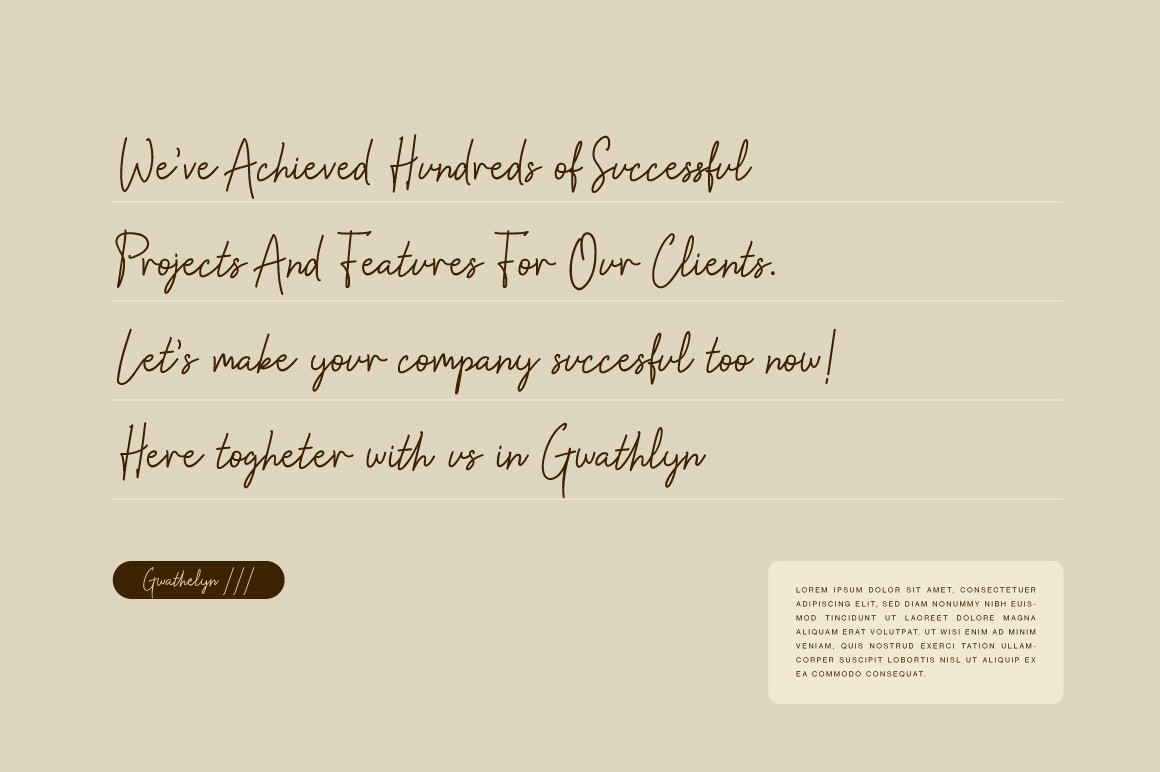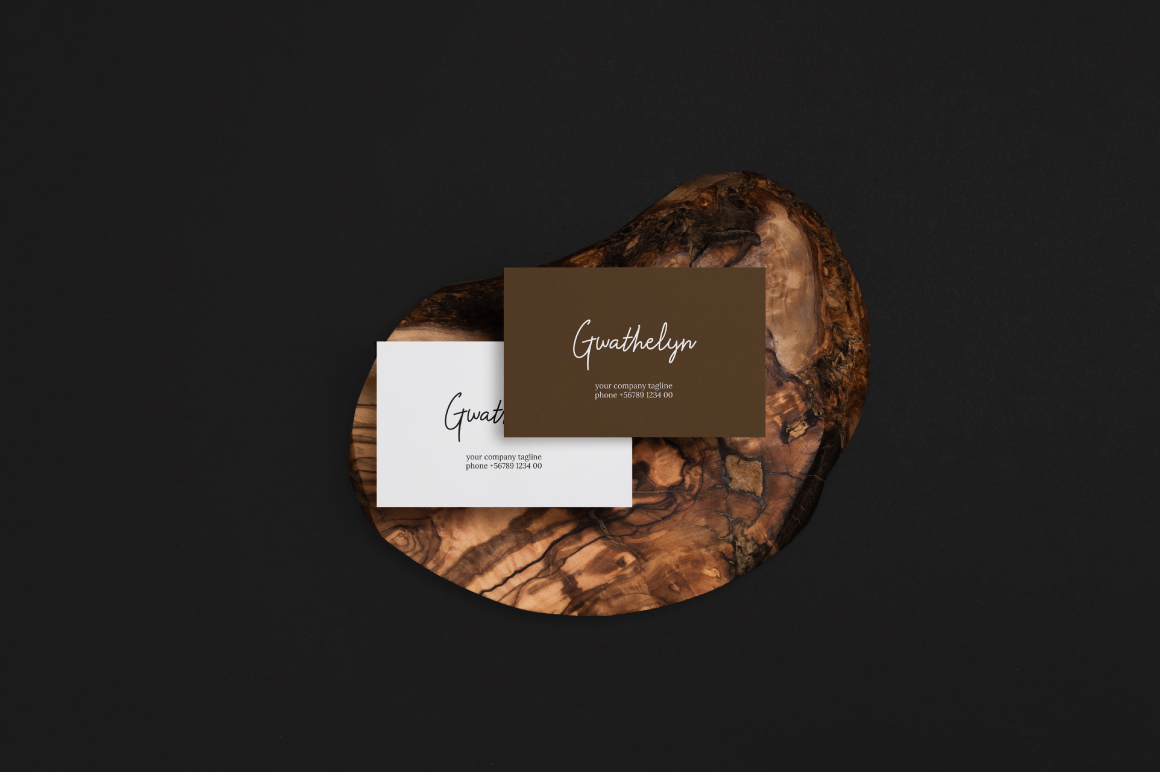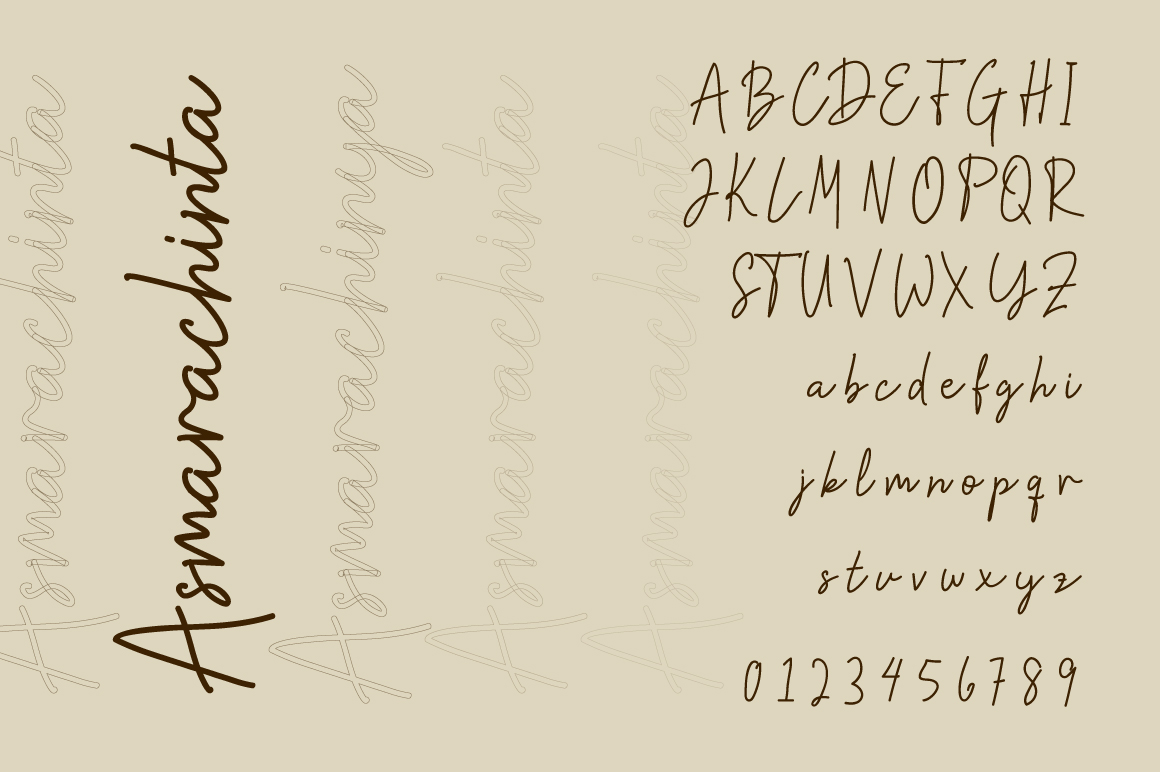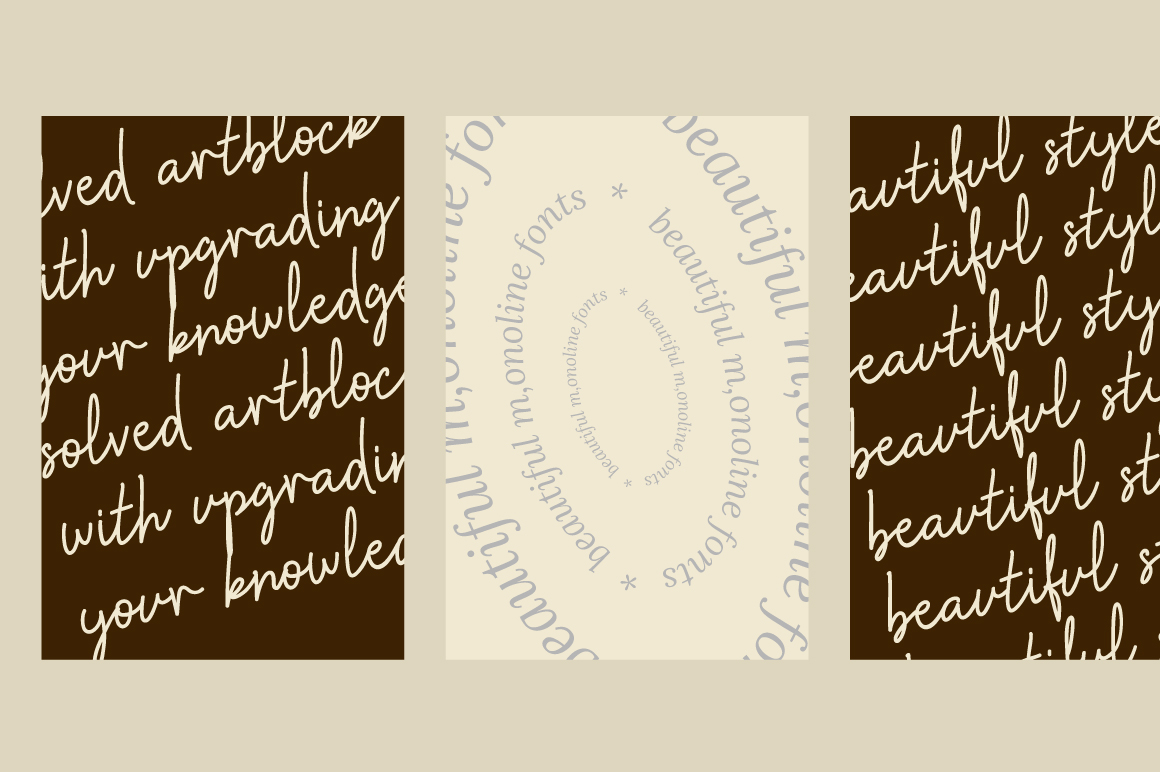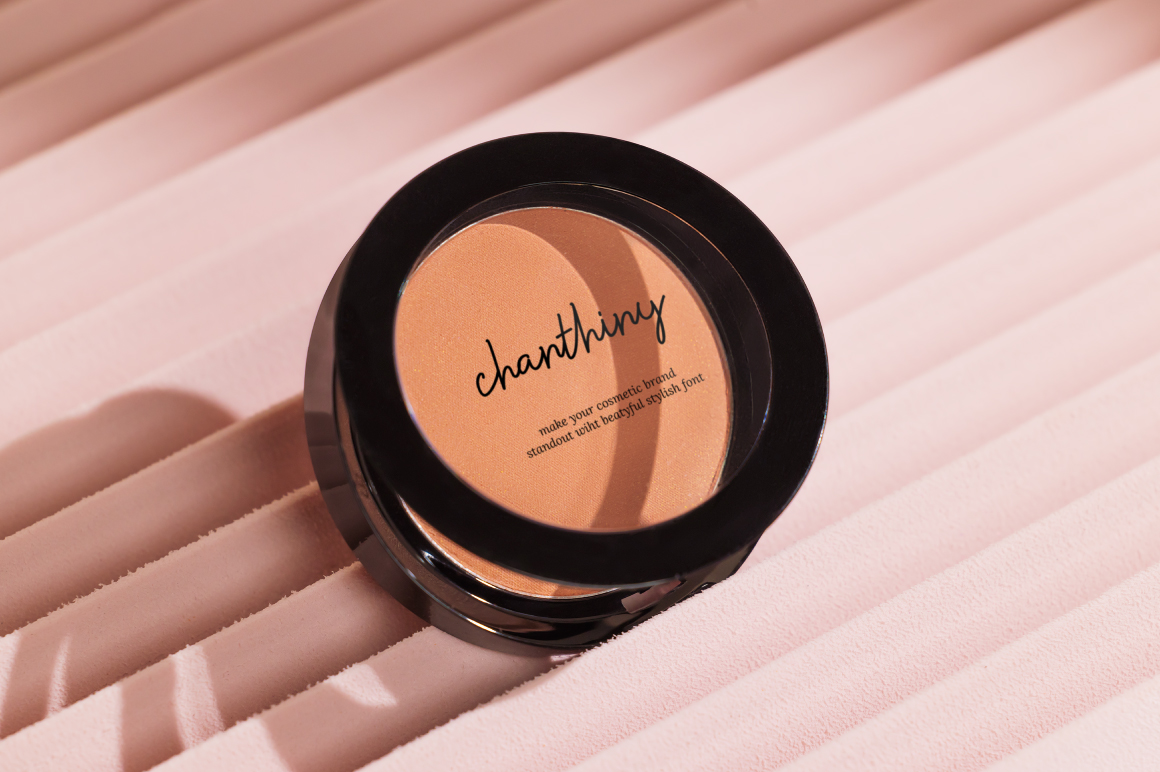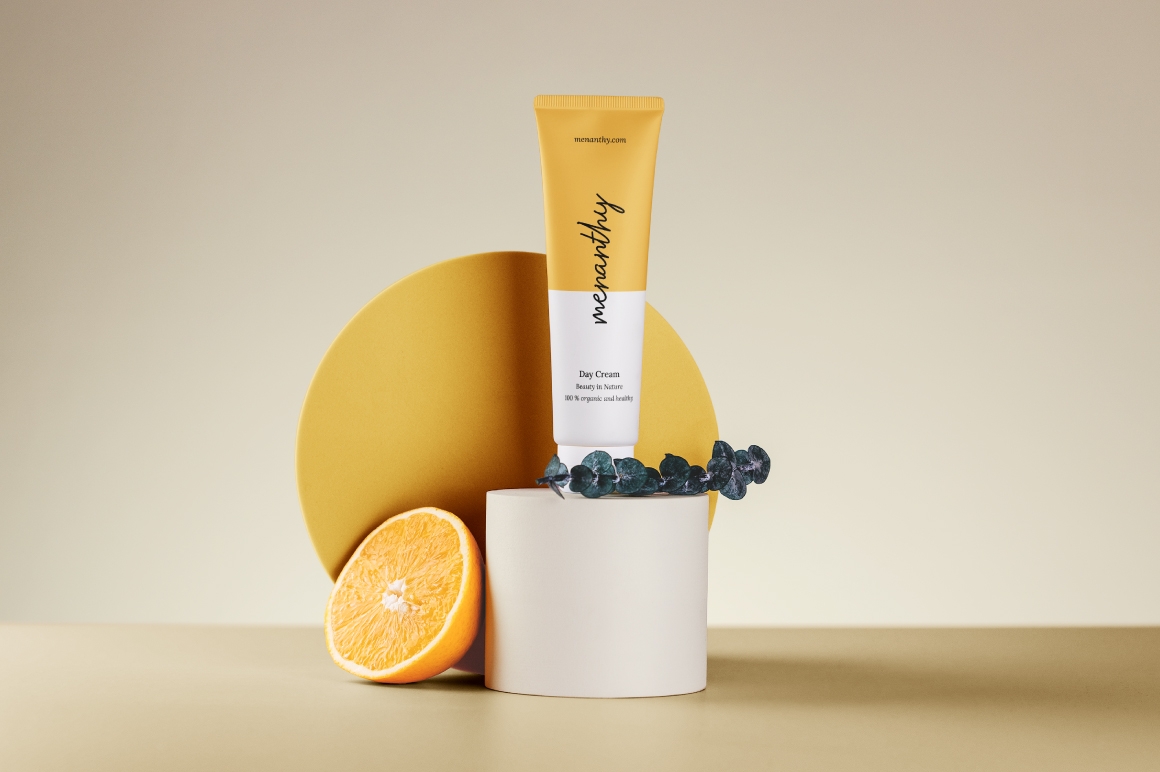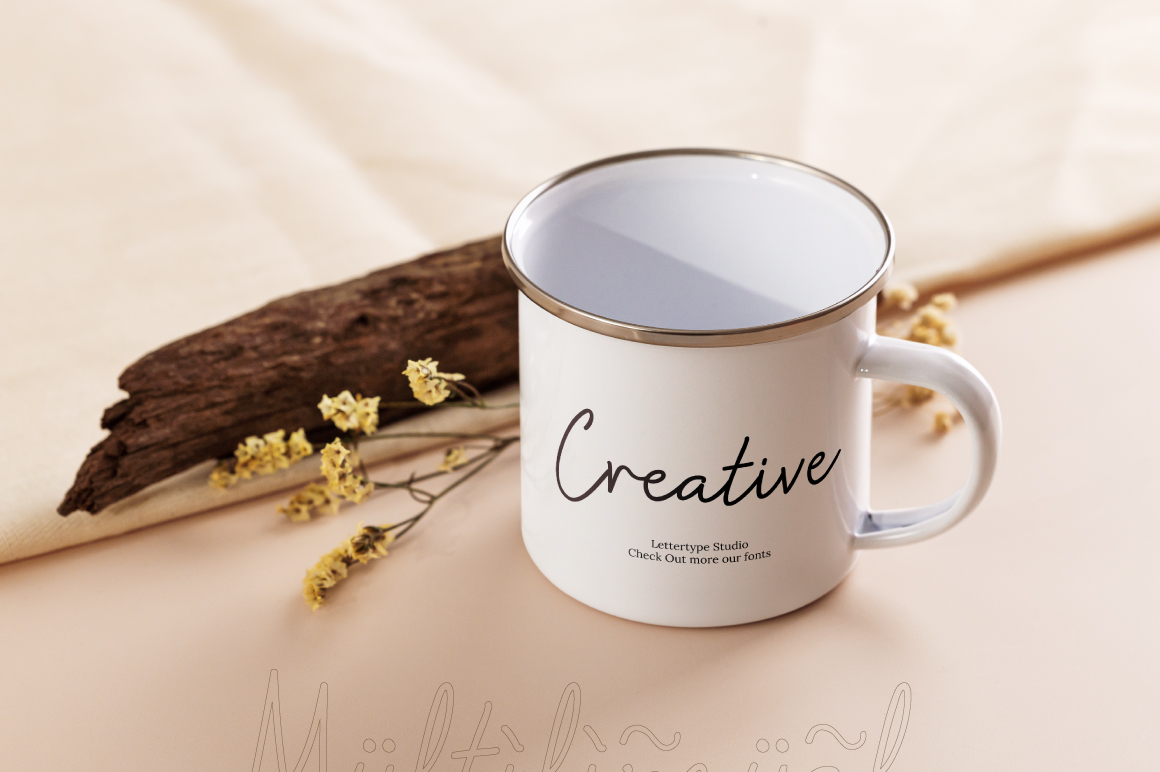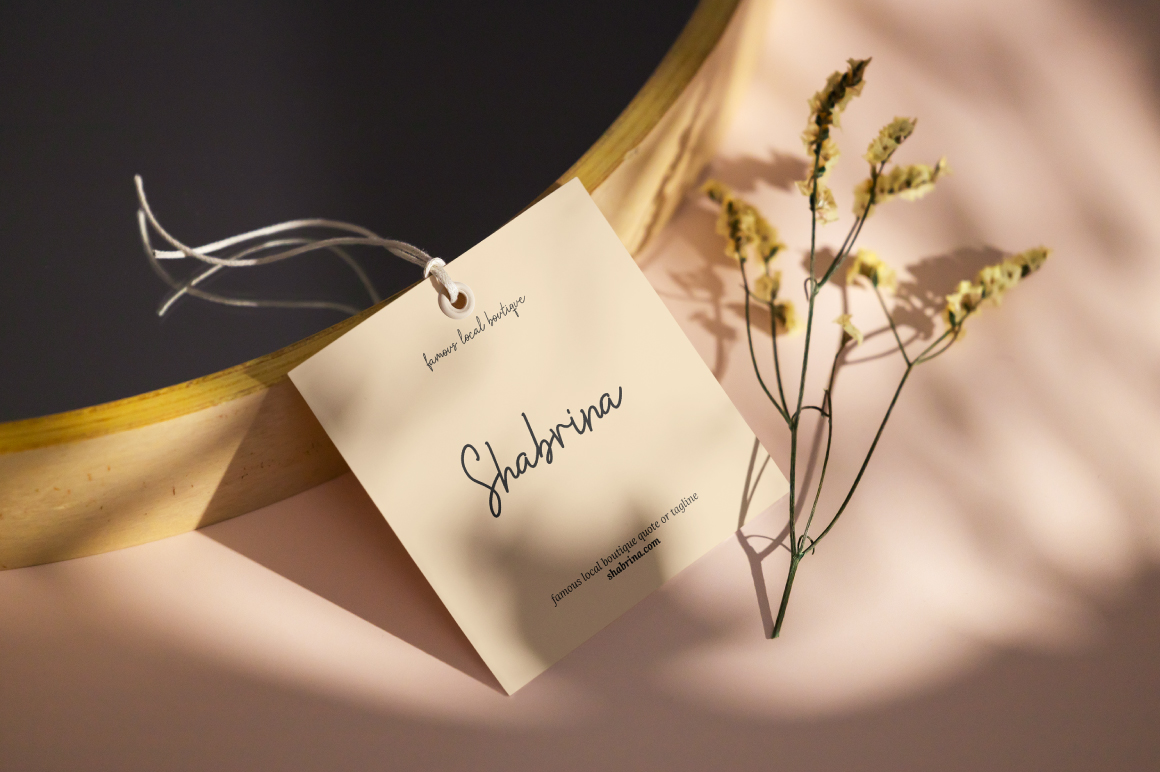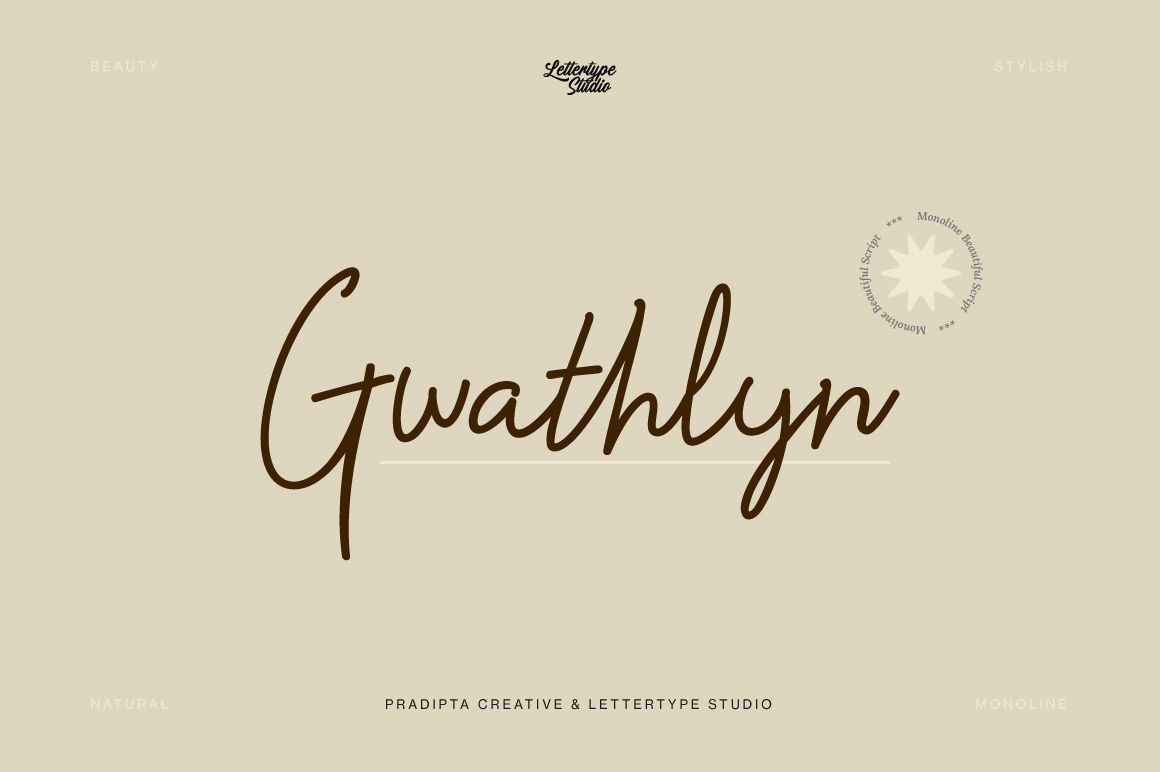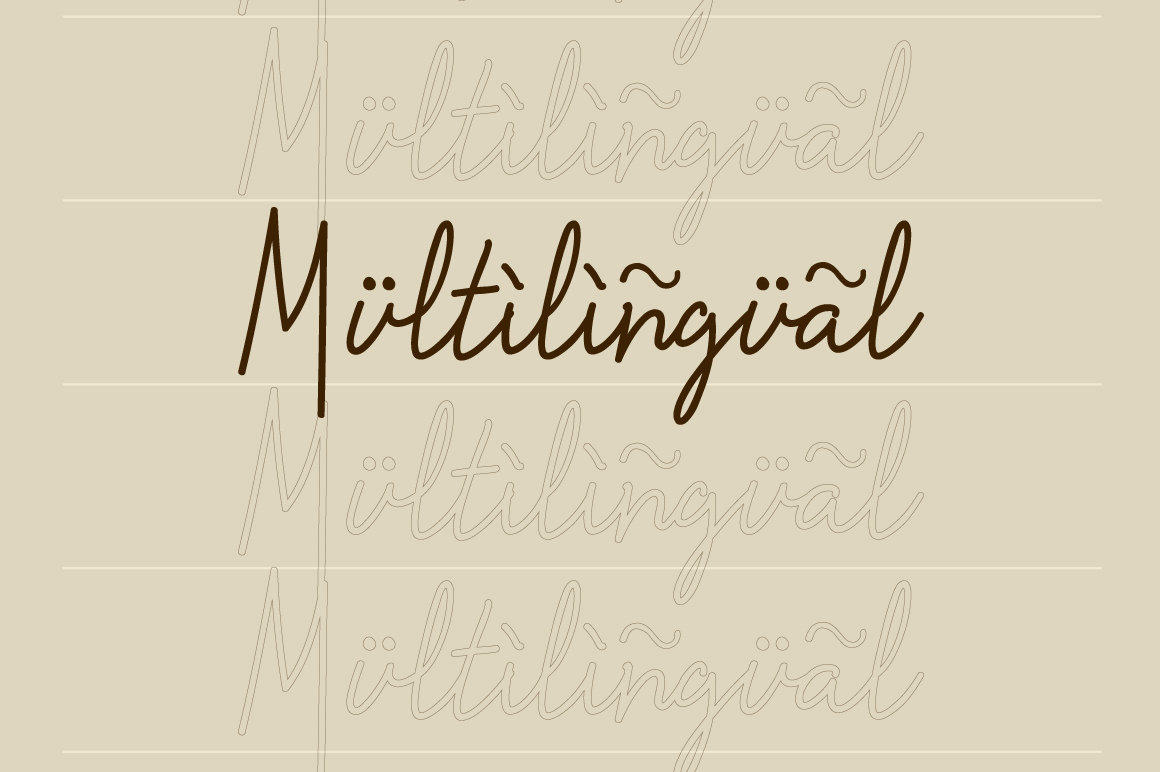
Gwathlyn
Gwathlyn is a modern and luxurious handwritten script font with a natural monoline style. Designed to capture the essence of handwritten elegance, it features smooth strokes, refined curves, and graceful flow — perfect for creating sophisticated visual identities.
Ideal for branding, photography watermarks, packaging, invitations, and social media graphics, Gwathlyn brings a professional yet personal touch to every project. With its balance of elegance and authenticity, this signature-style script adds charm and character to modern design work.